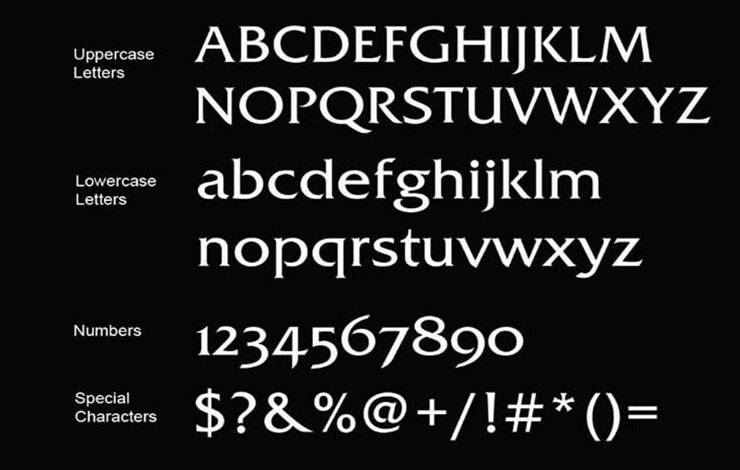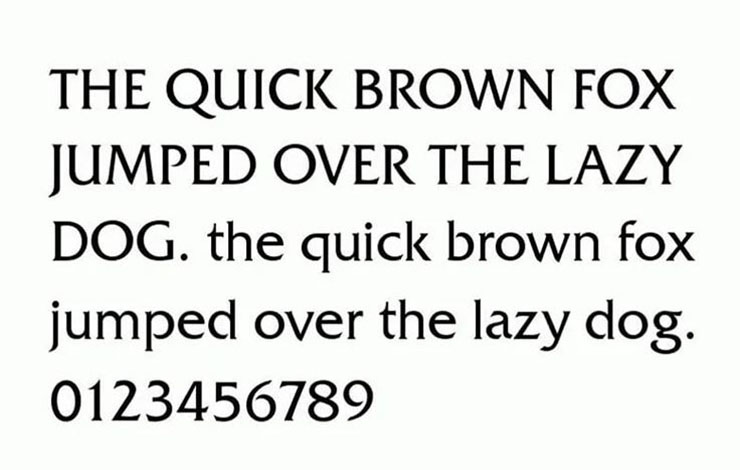
Law & Order Font is a logo typeface basically, It is an American police procedural and legal drama television series created by Dick Wolf and produced by Wolf Entertainment and Universal Television.
The font used in this logo is called Friz Quadrata Font which was designed by Ernst Friz and Victor Caruso for Visual Graphics Corporation in 1965. It comes in four styles that possess both OTF and TTF formats.
Law & Order Font Information
| Font Name: | Law & Order Font Family |
| Style: | Logo, Serif, Display |
| Font Designer: | Ernst Friz, Victor Caruso |
FAQs about Law & Order Font:
What is a Law & Order Font?
Law & Order Font is a logo typeface basically, It is an American police procedural and legal drama television series created by Dick Wolf and produced by Wolf Entertainment and Universal Television.
The font used in this logo is called Friz Quadrata Font which was designed by Ernst Friz and Victor Caruso for Visual Graphics Corporation in 1965.